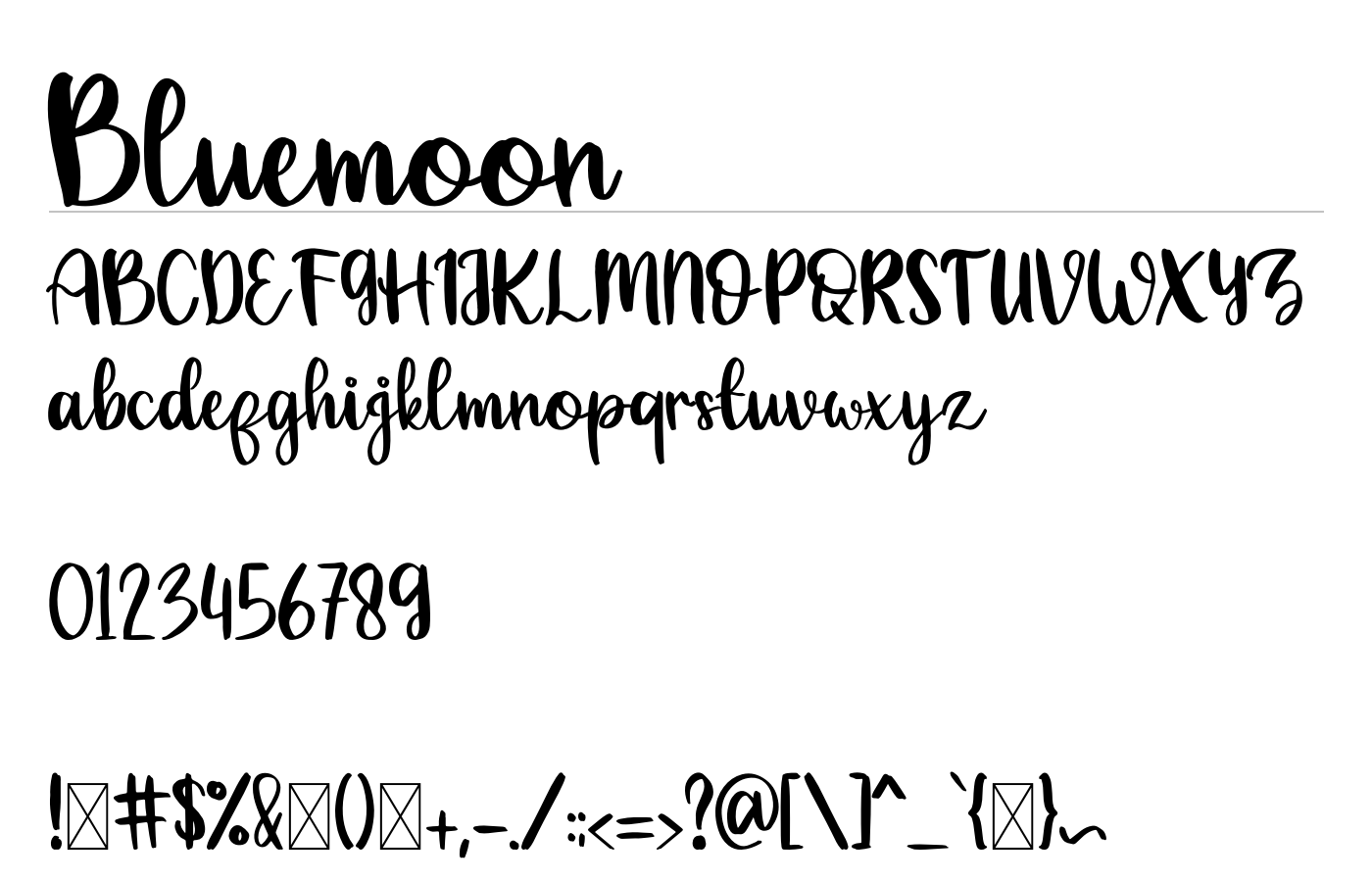
Bluemoon is a playful and lively script font with a handwritten feel, featuring smooth strokes that vary subtly in thickness to add a natural, friendly charm. Its tall, rounded letterforms and informal style make it perfect for casual branding, invitations, and creative projects that seek a warm, approachable vibe. This font works well in headlines and logos where personality and a personal touch are key.
Bluemoon Font